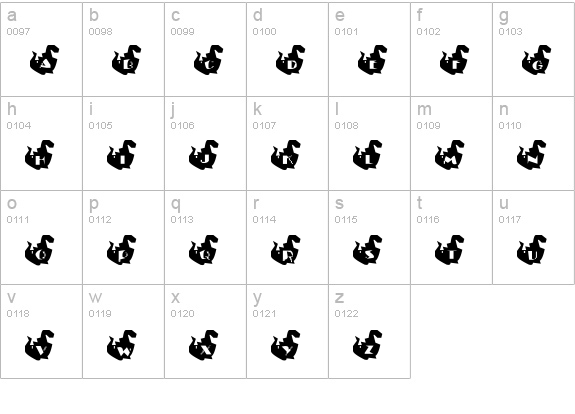
Dinosaur Stomp font is a bold and playful typeface that is perfect for adding a touch of prehistoric charm to your designs. With its rugged edges and towering presence, this font will make your text roar with character. Whether you're working on a project for kids or simply want to inject some fun into your design, Dinosaur Stomp font is the perfect choice. And the best part? Dinosaur Stomp font is completely free to download at FontsMarket.com! So go ahead and unleash the power of this dynamic font in your next project. Let Dinosaur Stomp font take a stomping lead in your design journey!